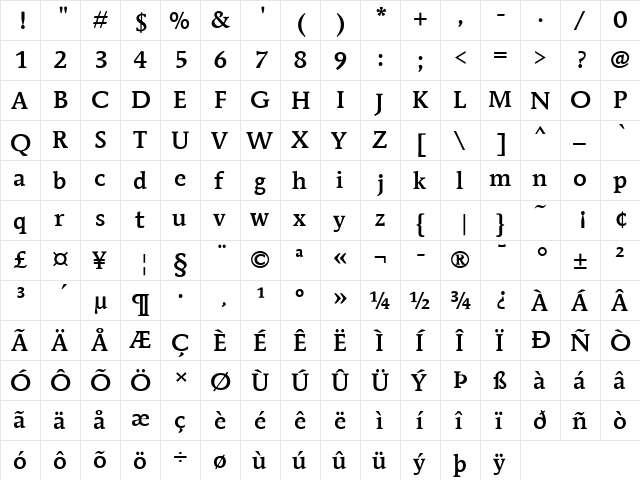
Mendoza Roman ITC Roman Medium
Design Context for Mendoza Roman ITC Typeface
Mendoza Roman ITC is a composed and adaptable typeface that performs quietly and consistently across a wide range of design contexts.